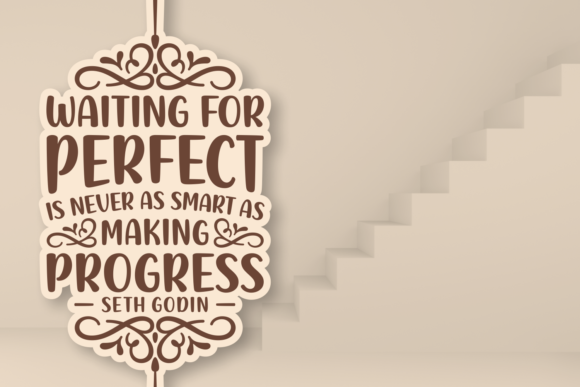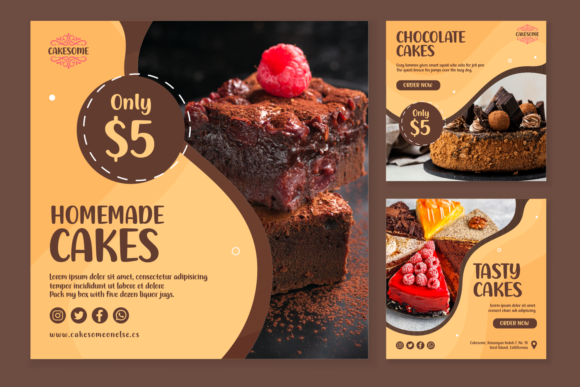
A Little Miracle Font: The Perfect Addition to Your Design Arsenal
Are you tired of using the same old fonts in your designs? Do you want to add a touch of personality and whimsy to your creations? Look no further than A Little Miracle Font, a simple, cute, and readable handwritten font that’s sure to make your designs stand out.
What is A Little Miracle Font?
A Little Miracle Font is a friendly and neat handwritten font that’s perfect for designers and crafters who want to add a personal touch to their work. With its approachable and charming style, this font is ideal for a wide range of design projects, from invitations and greeting cards to blog posts and social media graphics.
Key Features of A Little Miracle Font
- Simple and Readable: A Little Miracle Font is designed to be easy to read, making it perfect for body text and captions.
- Cute and Whimsical: This font has a playful and charming style that’s sure to add a touch of personality to your designs.
- Handwritten: A Little Miracle Font has a warm and personal feel that’s perfect for creating handmade or DIY-style designs.
- Friendly and Neat: This font is clean and well-organized, making it easy to use and pair with other fonts.
Why Use A Little Miracle Font?
There are many reasons why A Little Miracle Font is a great addition to your design arsenal. Here are just a few:
- Adds Personality: A Little Miracle Font is a unique and charming font that’s sure to add a touch of personality to your designs.
- Versatile: This font is perfect for a wide range of design projects, from digital designs to print materials.
- Easy to Read: A Little Miracle Font is designed to be easy to read, making it perfect for body text and captions.
- Pairs Well with Other Fonts: This font is clean and well-organized, making it easy to pair with other fonts to create a unique and cohesive look.
How to Use A Little Miracle Font
Using A Little Miracle Font is easy! Here are a few tips to get you started:
- Use it for Headings: A Little Miracle Font is perfect for headings and titles, where its playful and charming style can really shine.
- Pair it with Other Fonts: Try pairing A Little Miracle Font with other fonts to create a unique and cohesive look.
- Use it for Body Text: A Little Miracle Font is also great for body text, where its readability and charm can make your content stand out.
Design Inspiration with A Little Miracle Font
Here are a few design ideas to get you started with A Little Miracle Font:
- Wedding Invitations: Use A Little Miracle Font to create beautiful and personalized wedding invitations that set the tone for your special day.
- Social Media Graphics: Add a touch of personality to your social media graphics with A Little Miracle Font, perfect for creating engaging and shareable content.
- Blog Posts: Use A Little Miracle Font to add a touch of whimsy and charm to your blog posts, making them more enjoyable to read.
A Little Miracle Font is a simple, cute, and readable handwritten font that’s perfect for designers and crafters who want to add a personal touch to their work. With its friendly and neat style, this font is ideal for a wide range of design projects, from invitations and greeting cards to blog posts and social media graphics. So why not give it a try and see the magic for yourself?